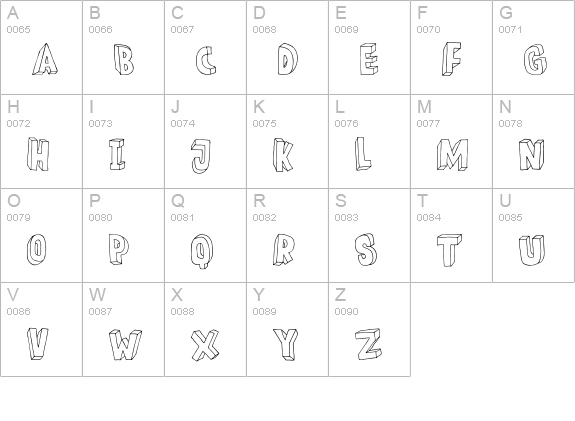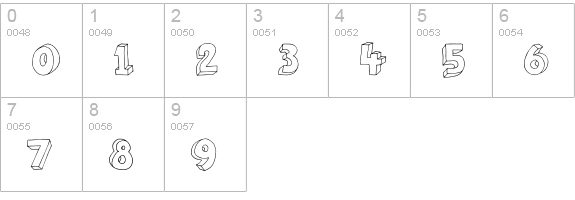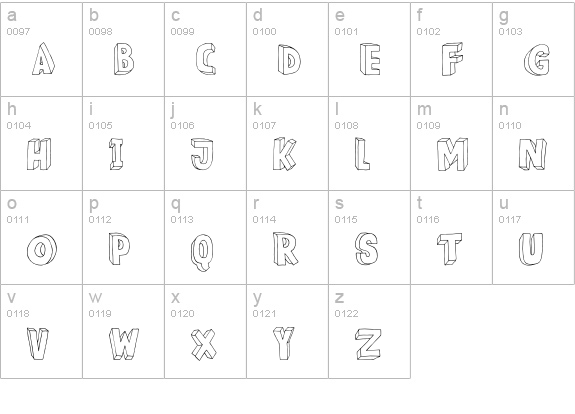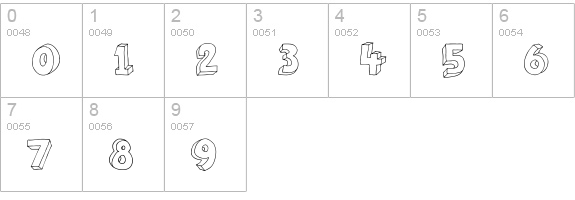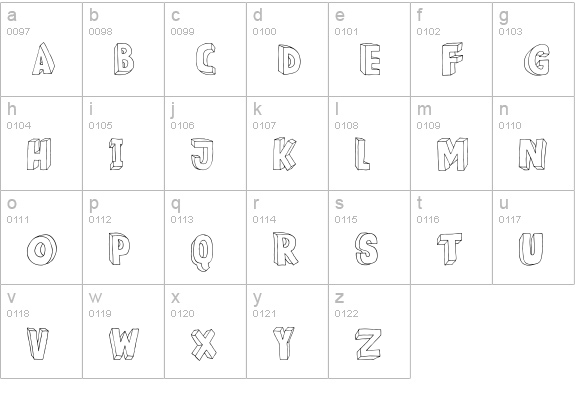
Introducing DK Meshuggeneh, a captivating and eccentric font that is sure to make a statement. This font exudes a unique charm with its wild and untamed letterforms, perfect for adding a touch of quirkiness to any design project. With its irregular strokes and playful curves, DK Meshuggeneh captures the essence of creativity and individuality. Each character is filled with energy and personality, making it a delightful choice for headlines, logos, posters, and more. One of the best things about DK Meshuggeneh is that it is available for free. Yes, you read that right! This incredible font can be freely downloaded at FontsMarket.com. Now, you can unleash your imagination without breaking the bank. Whether you're a professional designer or a hobbyist, DK Meshuggeneh is a must-have addition to your font collection. Its versatility allows it to shine in various contexts, from bohemian-inspired designs to eye-catching advertisements. Don't miss out on this opportunity to infuse your projects with a touch of unconventional charm. Download DK Meshuggeneh for free at FontsMarket.com and let your creativity run wild.